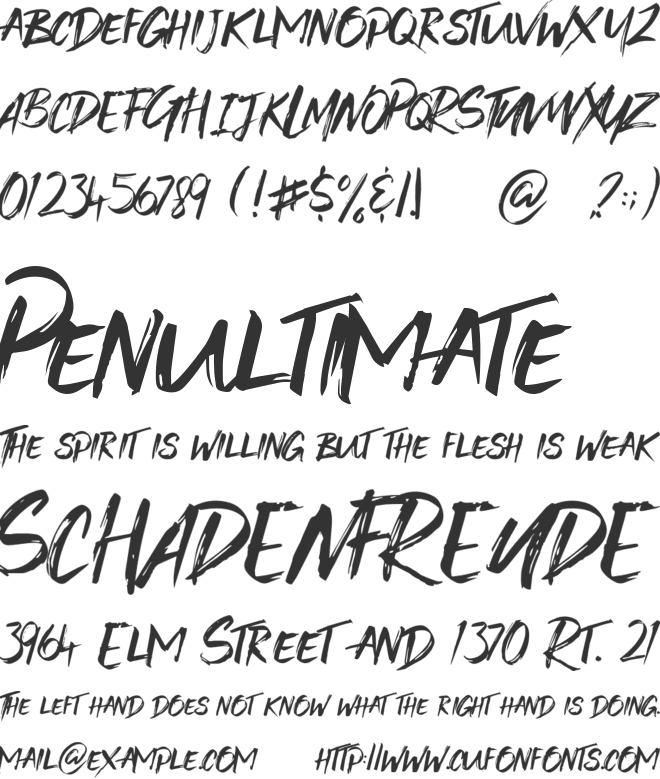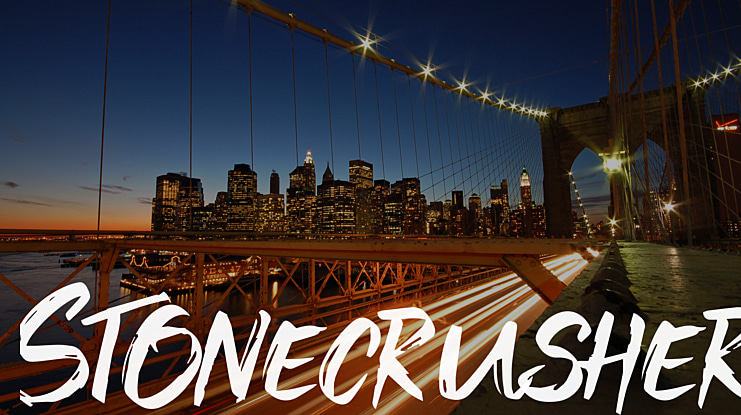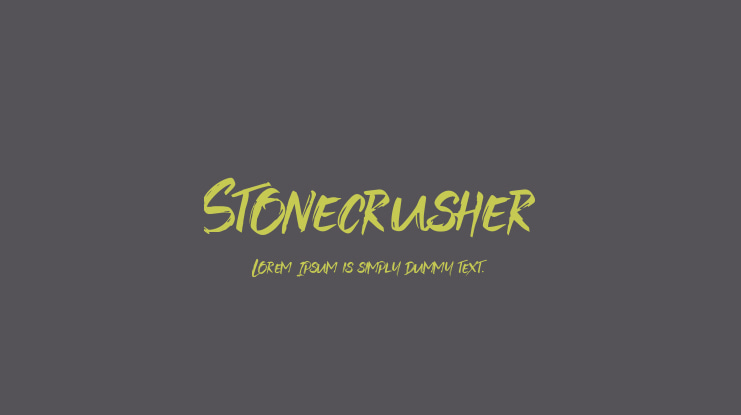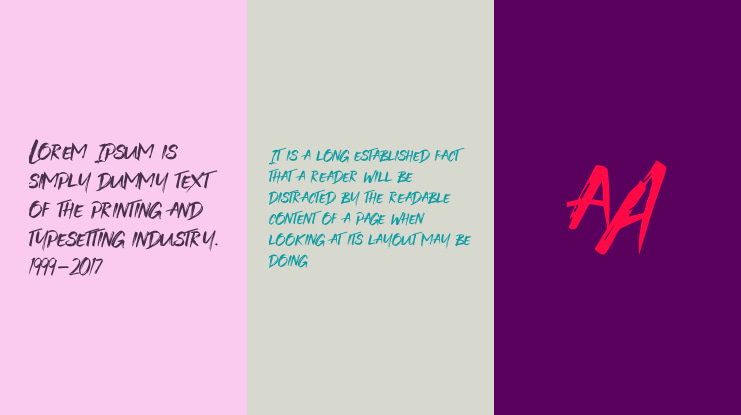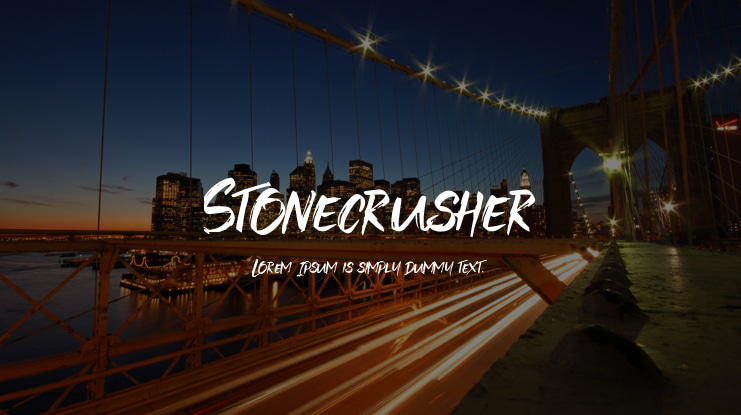
Stonecrusher Font
Stone Crusher is all caps handwritten font with brush style, comes with uppercase, alternative lowercase, numerals, and punctuation. This font will be perfect pick for various designs & artworks like social media post, brand type, posters, merchandise, packaging, headlines, merchandises, t-shirt, and many more..
Features:
-Uppercase Letters
-Lowercase alternative Letters
-Numbers and Punctuation